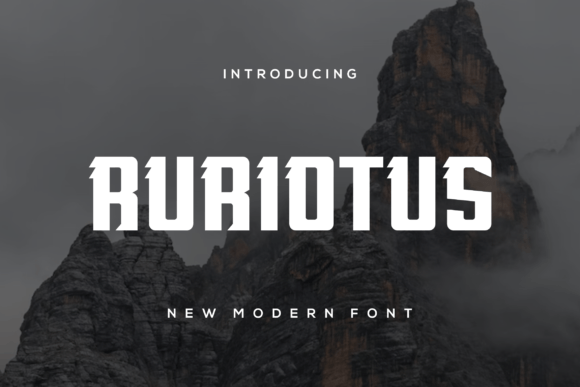
Introducing Ruriotus Font: The Ultimate Bold Statement for Your Creative Vision
In a world of monotonous typography, where fonts fade into the background, Ruriotus Font emerges as a bold and captivating sans-serif font, ready to transform your designs into forceful expressions of individuality. Created by the visionary mind of Yohanes Mulat Argo, Ruriotus is not just a font; it's a declaration of style, a testament to the power of visual impact.
Step into the realm of boldness with Ruriotus, where every letter carries the weight of confidence and authority. Its clean and sharp lines cut through the noise, demanding attention and leaving an indelible mark on the minds of your audience. Whether you're crafting striking headlines that command attention or composing impactful body text that resonates with power, Ruriotus is your trusted ally in the quest for typographic excellence.
Unleash the untapped potential of your creative projects with Ruriotus. Its thick strokes, reminiscent of a master calligrapher's hand, add a touch of sophistication to your designs, elevating them beyond the ordinary. From bold T-shirt designs that speak volumes to captivating posters that ignite emotions, Ruriotus is the font that breathes life into your artistic endeavors.
With Ruriotus at your fingertips, you'll discover a font that effortlessly blends strength and grace. Its carefully crafted curves and sharp angles create a visual symphony that dances before the eyes, captivating and enthralling your audience. Whether you're a seasoned designer seeking to leave a lasting impression or a creative entrepreneur yearning to make a statement, Ruriotus is your ultimate companion in the journey towards typographic greatness.